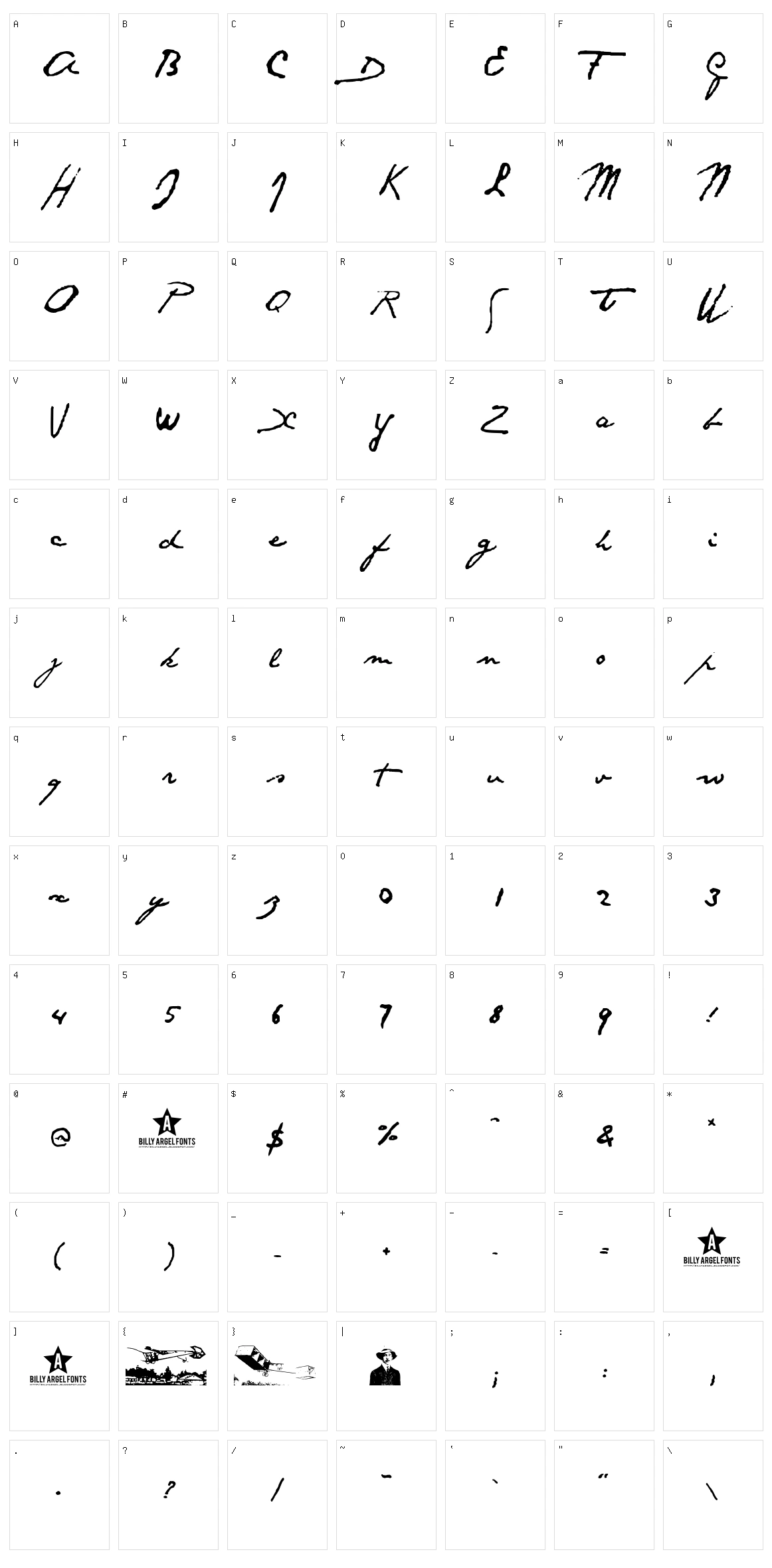
The free font Santos Dumont is carefully designed by Billy Argel Fonts ?, showcasing a thoughtful balance of creativity and usability and falls under the Script font style. When you download the ZIP file, it contains only 295.84 KB of font files, making it lightweight and quick to download. Please review the license details below to understand permitted usage and distribution rights. If license information is not available, we recommend using this font for personal projects only or contacting the author directly for commercial usage permissions.